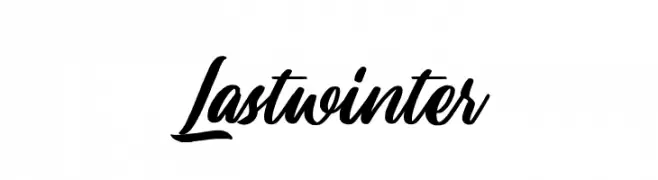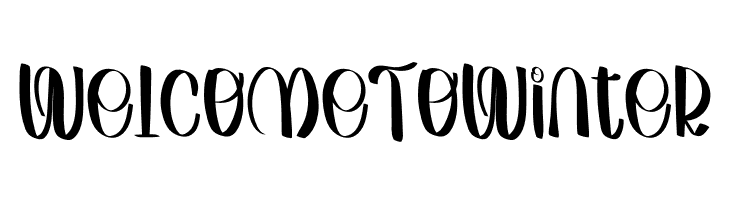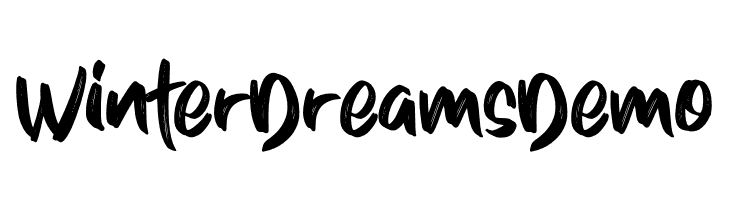
A bold, expressive handwritten font with brush-like strokes.
A bold, flowing script font with a dynamic and elegant style.
A bold, brush-style font with dynamic and expressive strokes.
A playful, bold handwritten font with a whimsical and informal style.
A lively, cursive font with a handwritten style and elegant flow.
A playful, handwritten font with a modern and whimsical style.
A playful, bold font with rounded, hand-drawn letterforms.
A playful, bold, and whimsical handwritten font with dynamic strokes.
A bold, playful script font with a handwritten feel.
A tall, slender, and elegant font with a whimsical touch.